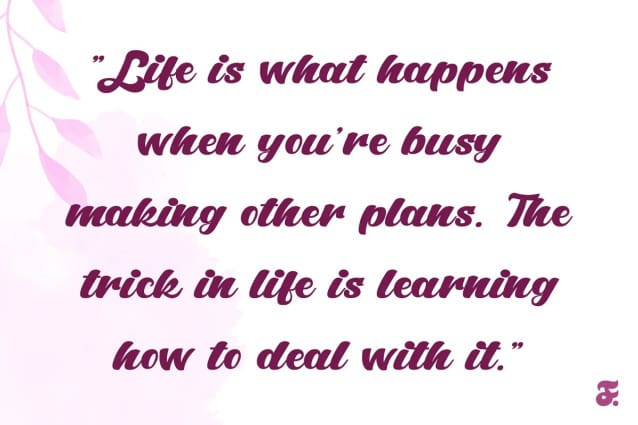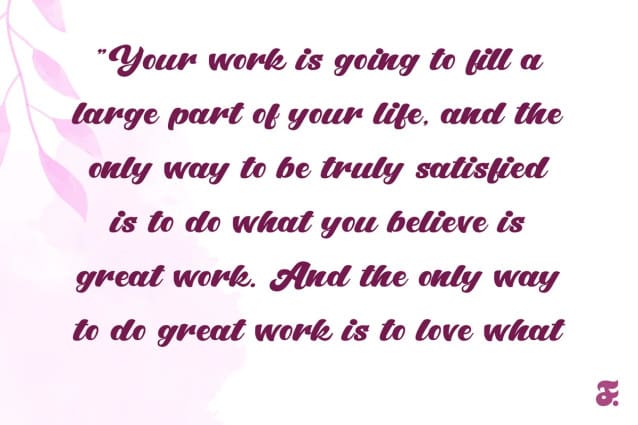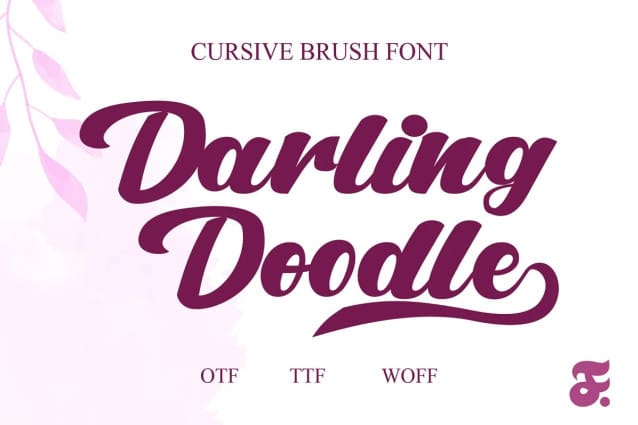
Darling Doodle Font
Darling Doodle Font is a delightful and whimsical typeface that effortlessly merges playfulness with sophistication. Crafted with precision and care, this font brings a touch of handwritten charm to any project. The cursive strokes of DarlingDoodle give off an air of effortless elegance, creating a sense of personalized warmth that can elevate various design endeavors. Whether used for invitations, greeting cards, or branding materials, Darling Doodle Script Font adds a distinctive and friendly flair to the written word.
What sets Darling Doodle apart is its versatile nature; it adapts seamlessly to both casual and formal contexts, making it an ideal choice for a wide range of creative applications. The font’s flowing lines and carefully designed letterforms contribute to a sense of organic fluidity, invoking a handwritten feel that resonates with authenticity. Each character is thoughtfully crafted, allowing for a visually cohesive and aesthetically pleasing outcome, ensuring that Darling Doodle Script Font stands out in the realm of script typefaces.
Designed to spark joy and evoke a sense of nostalgia, Darling Doodle Script Font is a testament to the artistry of handwritten expression in the digital age. Its innate ability to convey personality and convey a lighthearted tone makes it a valuable tool for designers seeking to infuse their projects with a touch of individuality. With Darling Doodle, every word becomes an artful expression, and every design flourishes with a hint of whimsy, making it a standout choice for those who appreciate the fusion of creativity and typography.